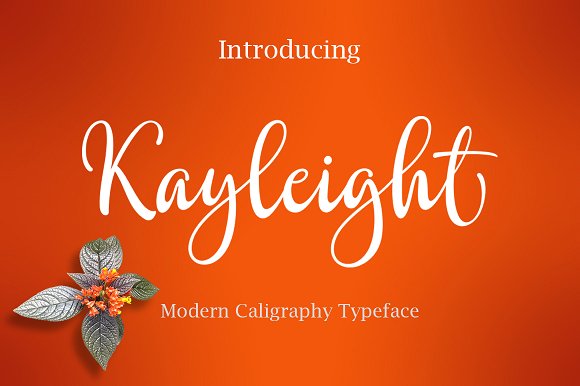
Dive into the realm of elegance with Kayleight Font, a script font family that captures the essence of sophistication and charm. Created by the talented Byuly Ayika, Kayleight is a petite family brimming with character, boasting an impressive collection of over 460 hand-drawn glyphs. Each letter, meticulously crafted, exudes a sense of artistry and attention to detail, promising to elevate your creative projects to new heights.
Immerse yourself in the allure of Kayleight's sweeping curves and graceful lines. Its delicate strokes dance across the page, evoking a sense of timeless beauty that is both captivating and serene. Whether you're crafting wedding invitations, designing logos, or creating social media graphics, Kayleight adds an air of refinement and elegance that is sure to leave a lasting impression.
Unleash your creativity and explore the endless possibilities of Kayleight's extensive character set. With a wide range of stylistic alternates, ligatures, and swashes at your fingertips, you can craft designs that truly stand out from the crowd. Experiment with different combinations to create unique and personalized messages that reflect your individual style.
Step into the world of Kayleight and let your imagination soar. This versatile font family is the perfect companion for a variety of design projects, from elegant branding to heartfelt personal notes. Its enchanting aura breathes life into your words, transforming them into captivating expressions of art.